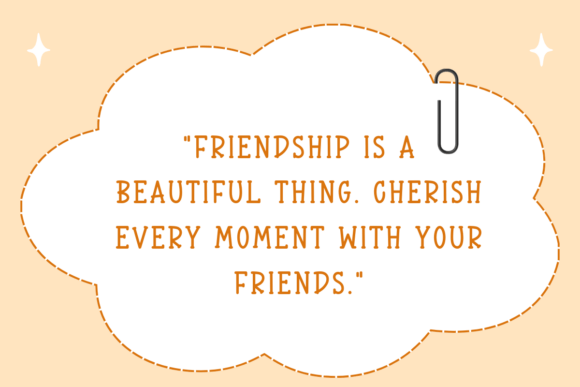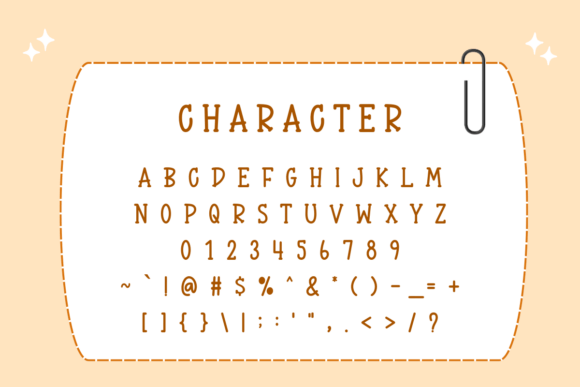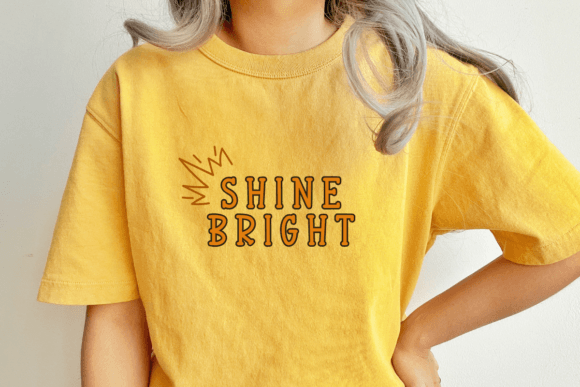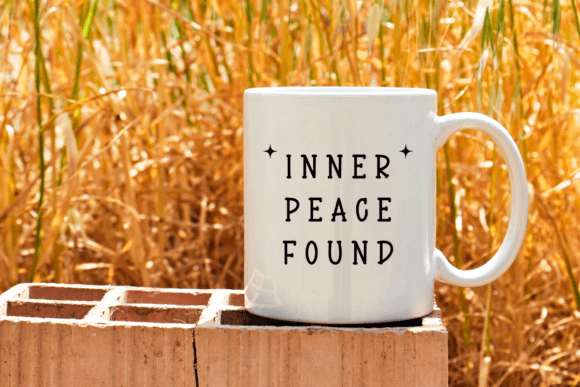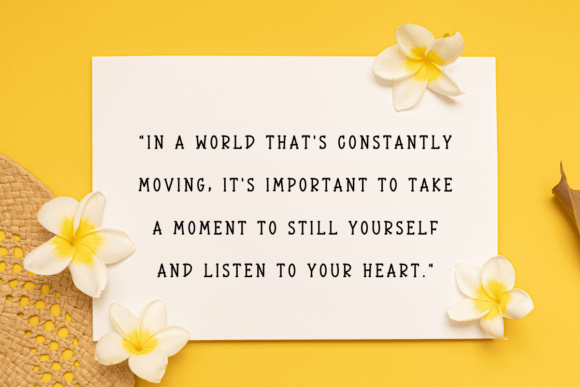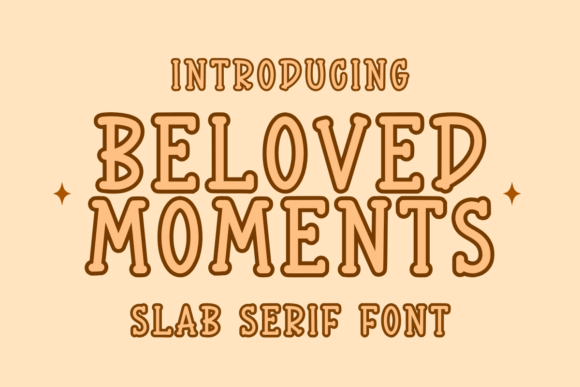
Introducing Beloved Moments Font: The Ultimate Go-to for Designers and Crafters
Are you on the hunt for a font that can elevate your designs, crafts, and digital projects to the next level? Look no further than Beloved Moments Font! This fun, cute, and handwritten sans serif font is perfect for a wide range of applications, from crafting and digital design to presentations and greeting cards. In this article, we’ll dive into the features, benefits, and uses of Beloved Moments Font, and explore why it’s poised to become your new favorite go-to font.
What is Beloved Moments Font?
Beloved Moments Font is a unique and charming handwritten sans serif font that’s designed to bring a touch of personality and whimsy to your designs. Its clean and simple lines make it highly versatile, while its playful and carefree vibe ensures that your projects will stand out from the crowd. Whether you’re a designer, crafter, or DIY enthusiast, Beloved Moments Font is the perfect choice for anyone looking to add a dash of fun and creativity to their work.
Key Features of Beloved Moments Font
- Handwritten sans serif font: Beloved Moments Font boasts a beautiful, handwritten aesthetic that’s both modern and approachable.
- Fun and playful vibe: This font is designed to bring a smile to your face and a touch of whimsy to your designs.
- Highly versatile: Beloved Moments Font can be used for a wide range of applications, from digital design and presentations to crafting and making greeting cards.
- Easy to read: Despite its playful nature, Beloved Moments Font is highly legible, making it perfect for both headings and body text.
Uses for Beloved Moments Font
So, what can you use Beloved Moments Font for? The possibilities are endless! Here are just a few ideas to get you started:
- Crafts: Add a personal touch to your scrapbooking, journaling, and other paper crafts with Beloved Moments Font.
- Digital design: Use Beloved Moments Font to create stunning social media graphics, blog posts, and website headers.
- Presentations: Elevate your presentations and slideshows with a font that’s both fun and professional.
- Greeting cards: Create one-of-a-kind greeting cards for special occasions, from birthdays and holidays to weddings and graduations.
Why Choose Beloved Moments Font?
With so many fonts to choose from, why should you choose Beloved Moments Font? Here are just a few reasons why this font is poised to become your new go-to:
- Unique and eye-catching: Beloved Moments Font is a breath of fresh air in a world of generic fonts.
- Highly versatile: This font can be used for a wide range of applications, making it a great addition to your font library.
- Fun and playful: This font is designed to bring a smile to your face and a touch of whimsy to your designs.
In conclusion, Beloved Moments Font is a fun, cute, and highly versatile font that’s perfect for designers, crafters, and DIY enthusiasts. With its unique and eye-catching aesthetic, ease of use, and wide range of applications, it’s poised to become your new go-to font. So why wait? Download Beloved Moments Font today and start adding a touch of personality and whimsy to your designs!